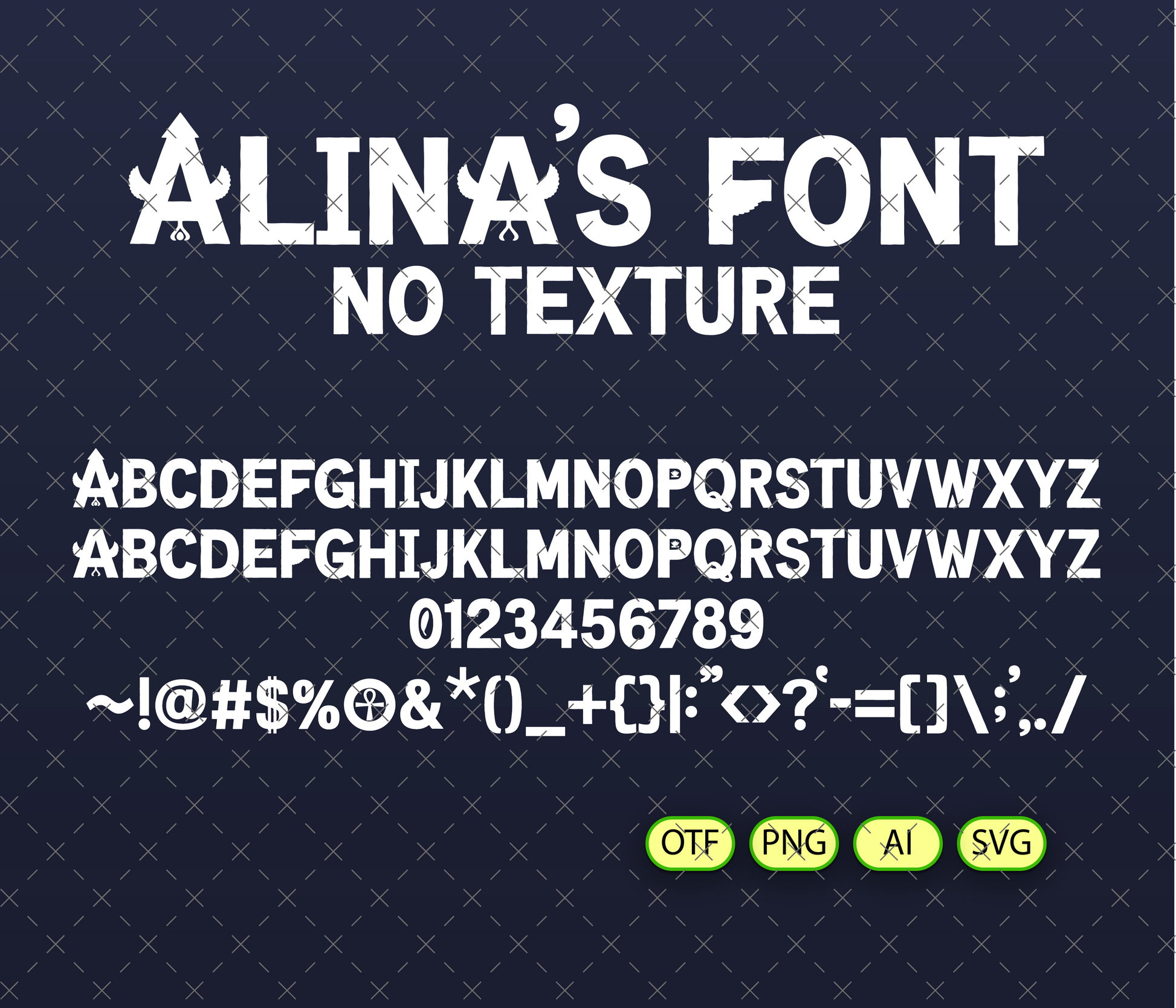
Egyptian Glory Font
Discover the timeless beauty of ancient Nile civilization with our Egyptian Glory Font No Texture, capturing the essence of temple-carved elegance and dynasty-era mystique. Perfect for history enthusiasts, themed event planners, content creators, and creative professionals, this font brings the bold, timeless spirit of sacred pharaoh stories to your projects. Create eye-catching invitations, merchandise, or digital content with the dramatic energy of royal tomb discovery narratives.
Refined Typography for Historical Design & Cultural Projects
Our Egyptian Glory Font No Texture features clean, elegantly styled letterforms with crisp and versatile outlines reflecting the world of ancient temple priests and sacred monument settings.
- Event Promotions: Produce mesmerizing invitations, posters, and banners for antiquity exhibitions, history conventions, and gatherings that embody the spirit of ancient Egyptian entertainment
- Merchandise Design: Exceptional for t-shirts, posters, stickers, and accessories that reflect the sleek aesthetic of pharaonic culture themes
- Digital Media: Elevate websites, blogs, and social media with polished headers and graphics that radiate the wonder of ancient sacred kingdoms
- Creative Content: Breathe genuine authenticity into historical artwork, educational designs, and creative projects inspired by sacred Nile delta tales
- Personal Projects: Awaken ancient energy within scrapbooking, DIY crafts, and home decor inspired by the world of mythical Egyptian deity characters
Our font celebrates the world of ancient civilization stories and sacred temple discovery, empowering your projects with its bold and timeless spirit. Whether crafting educational materials, designing themed products, or adding a historical touch to personal projects, this font communicates the vibrant essence of pharaonic cultural heritage. Ready to infuse ancient mystique into your creations? This font is your perfect companion for eye-catching, impactful design.